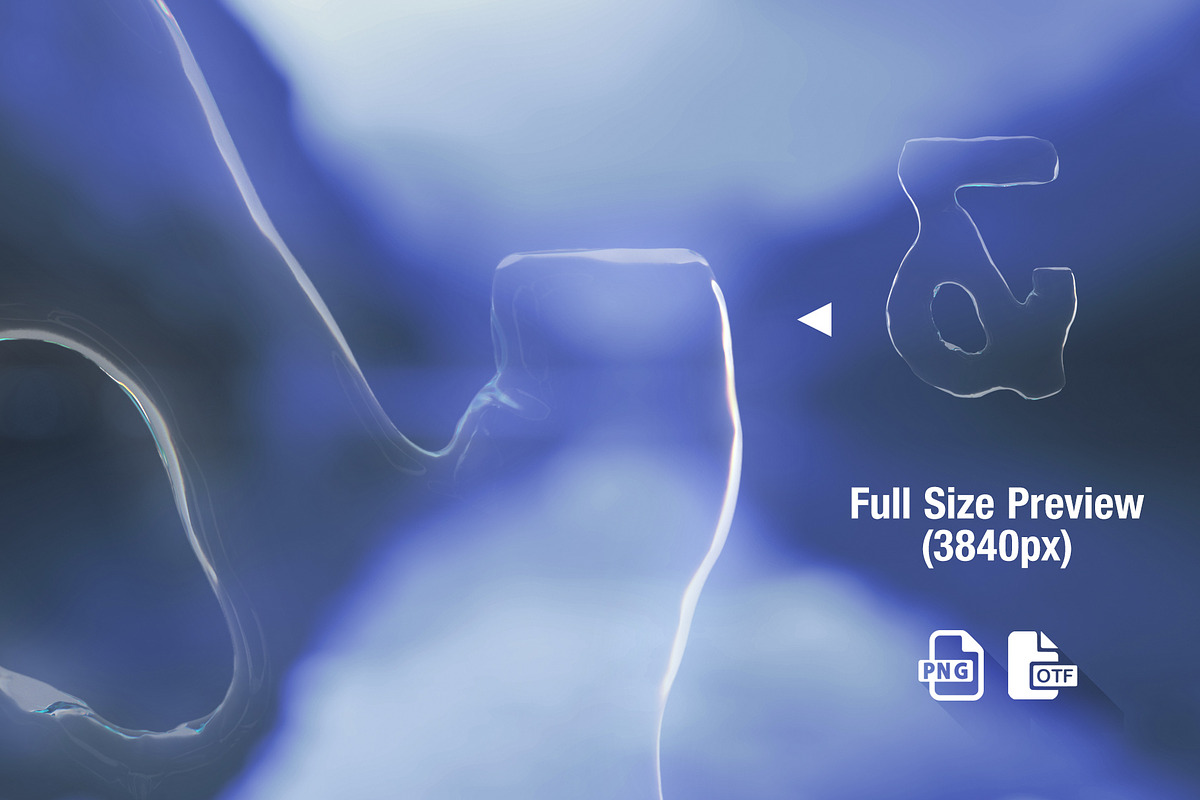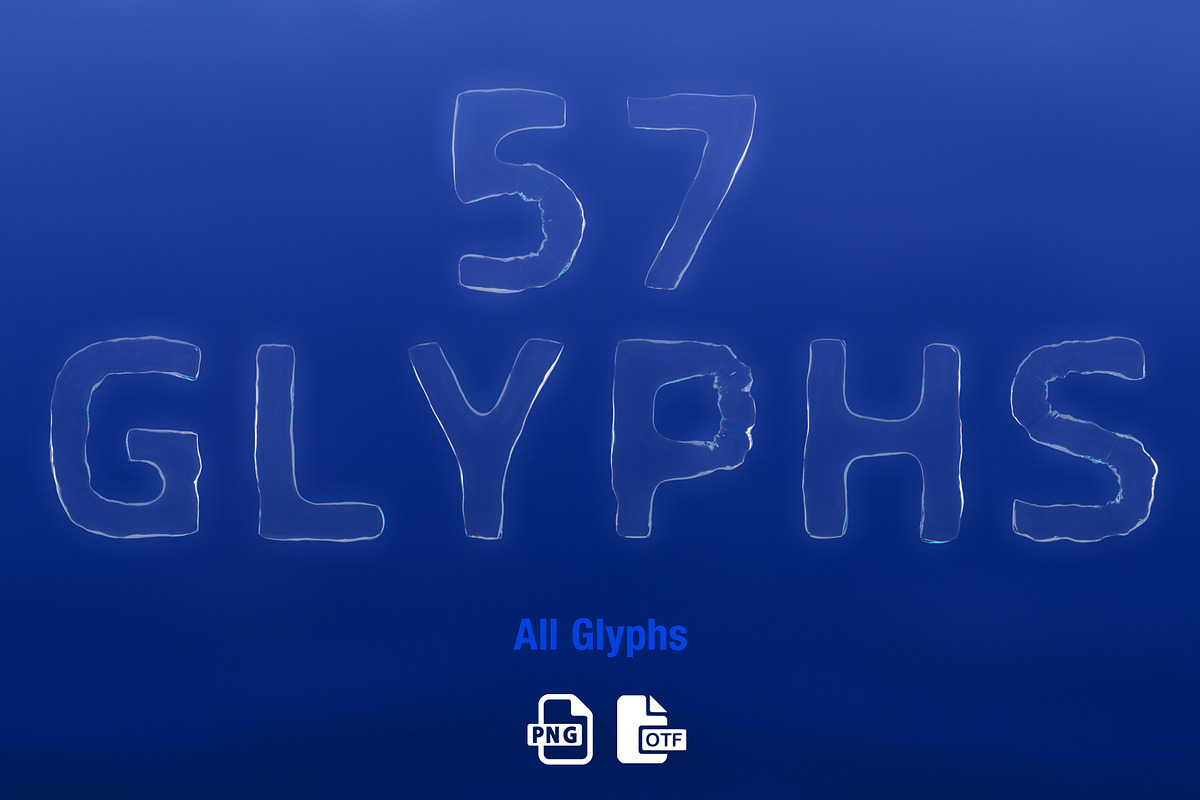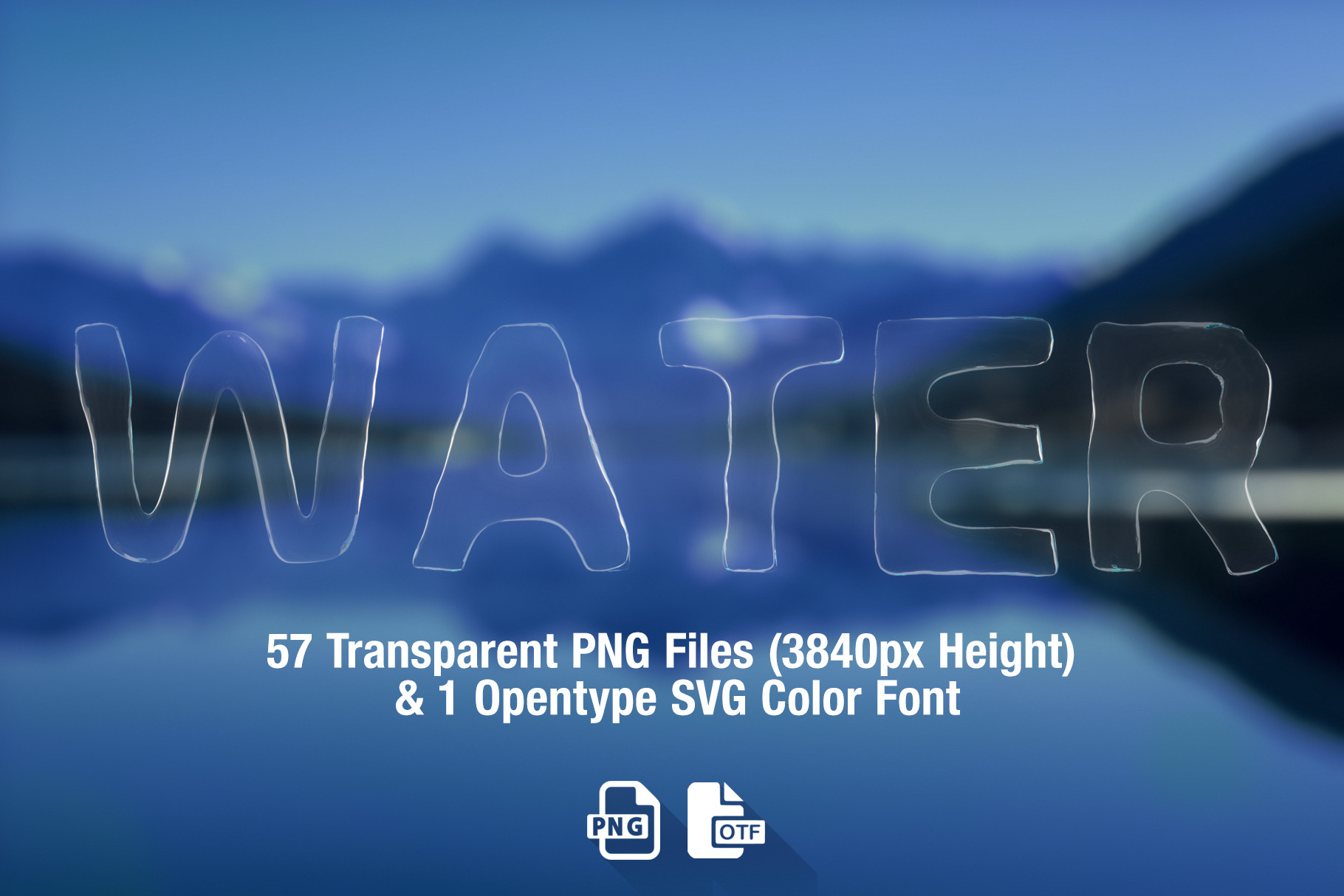
MS Water Color Font & PNGs
MS Water Opentype SVG Bitmap-Color Font and PNG Files
Each letter is modelled and rendered in a 3D Application, also converted into an Opentype SVG (Color Font)
- Basic western uppercase letters (and some extended latin letters such as Ğ,Ş,Ü,Ö,Ç)
- Basic Punctuation and Symbols